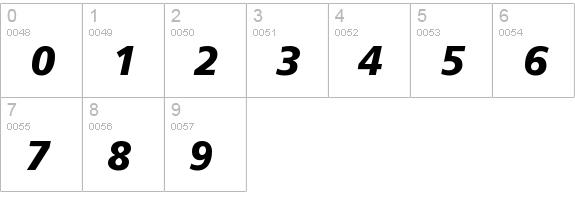
Palma Black SSi Black is a maximum-weight, dramatic variant in the Palma typeface family \xE2\x80\x94 well suited to maximum-impact headlines, posters, and packaging.
Palma Black SSi Black font is a stunning display typeface that exudes elegance and sophistication. Its bold and sleek design makes it perfect for creating eye-catching headlines, logos, and invitations that demand attention. The sharp and clean lines of this font give it a modern and contemporary feel, while its black weight adds a touch of drama and impact. With Palma Black SSi Black font, you can effortlessly add a touch of luxury to your designs. Whether you are working on a fashion magazine, a high-end brand identity, or a prestigious event announcement, this font is sure to make a lasting impression. What makes Palma Black SSi Black font even more appealing is that it is freely available to download at FontsMarket.com. This means that you can easily access and use this font for personal and commercial projects without any restrictions. Whether you are a professional designer or a hobbyist, this font is a valuable addition to your creative toolbox. Don't miss out on the opportunity to enhance your designs with the bold and captivating Palma Black SSi Black font. Download it for free at FontsMarket.com and let your creativity shine.